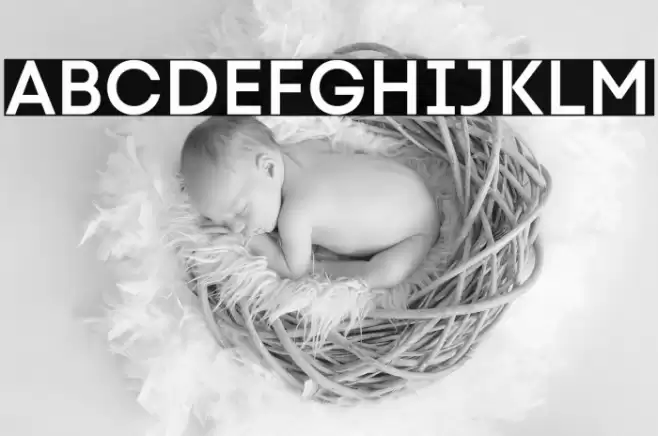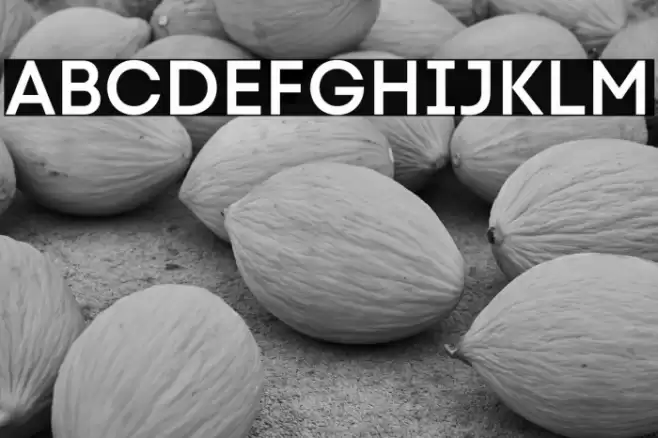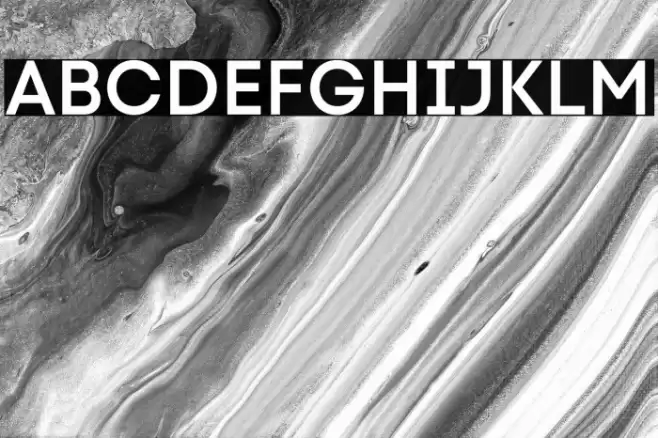
Code Next-Trial SemiBold Font
Code Next-Trial SemiBold Description
This font features a clean and modern sans-serif design, characterized by its geometric shapes and balanced proportions. The letters are uniform in width, providing a harmonious and consistent appearance. The uppercase and lowercase letters are well-defined, with a slight roundness that adds a touch of friendliness to the overall look. The numerals are clear and easy to read, making them suitable for various applications. The special characters are designed to match the overall aesthetic, ensuring a cohesive look across all text elements. This font is versatile and can be used in both digital and print media.
A modern, geometric sans-serif font with balanced proportions from Uncategorized fonts.
- Font: Code Next-Trial SemiBold
- Proposed Projects: Ideal for branding, web design, advertising, and editorial projects.